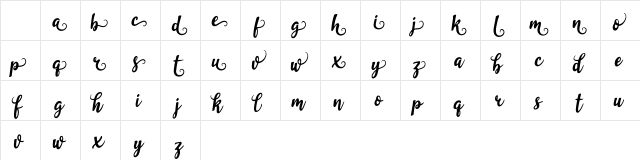
Complete garliXbrowN glyph index. Displaying only characters natively supported by garliXbrowN font.
garliXbrowN is a composed and adaptable typeface that performs quietly and consistently across a wide range of design contexts.
Who designed the garliXbrowN font?